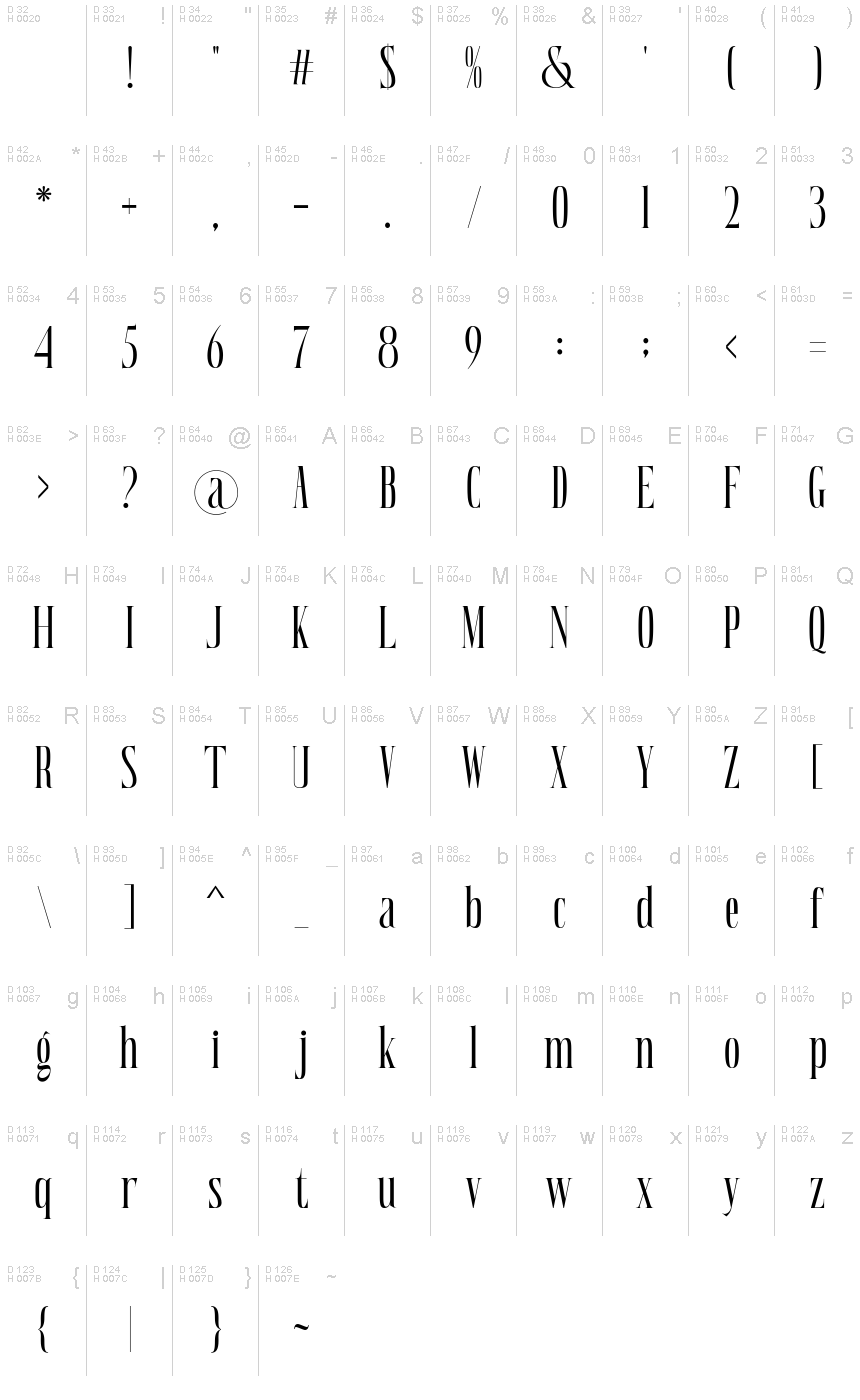
River SHINE
River Shine font by ToniStudio is a stunning serif masterpiece known for its elegant, condensed form. This free font offers an exquisite balance of classic sophistication and modern style, making it ideal for designers seeking to create a lasting impression. Its slender characters add a touch of refinement, perfect for branding projects, editorial designs, or luxurious packaging.
The River Shine font’s unique aesthetic appeal combines timeless serif beauty with a sleek profile, ensuring readability while adding flair to any project. With its striking appearance, this font is perfect for high-fashion magazines, upscale event invitations, and elegant website headings.